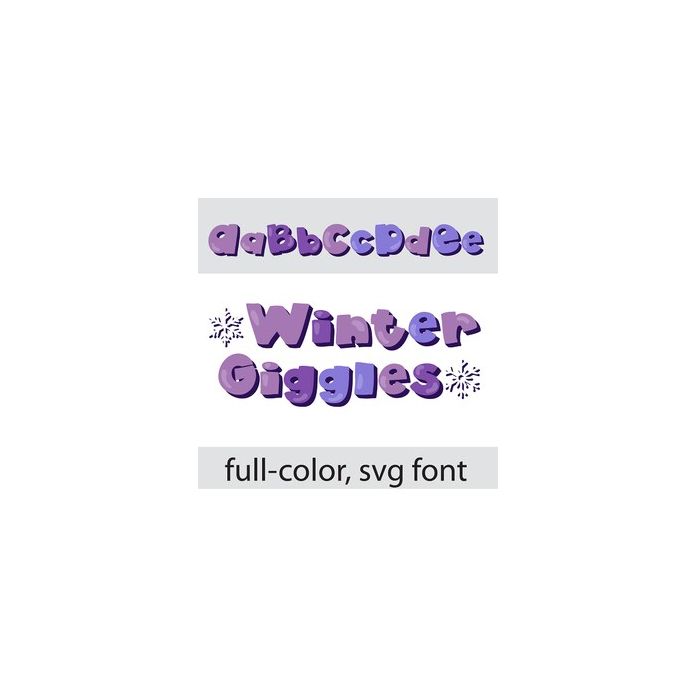
This full-color font features a 3d whimsical letter in a winter color palette. Access snowflakes by typing brackets or parenthesis. There is an alt case w/ additional colors you can access through your system or Silhouette's glyph map.